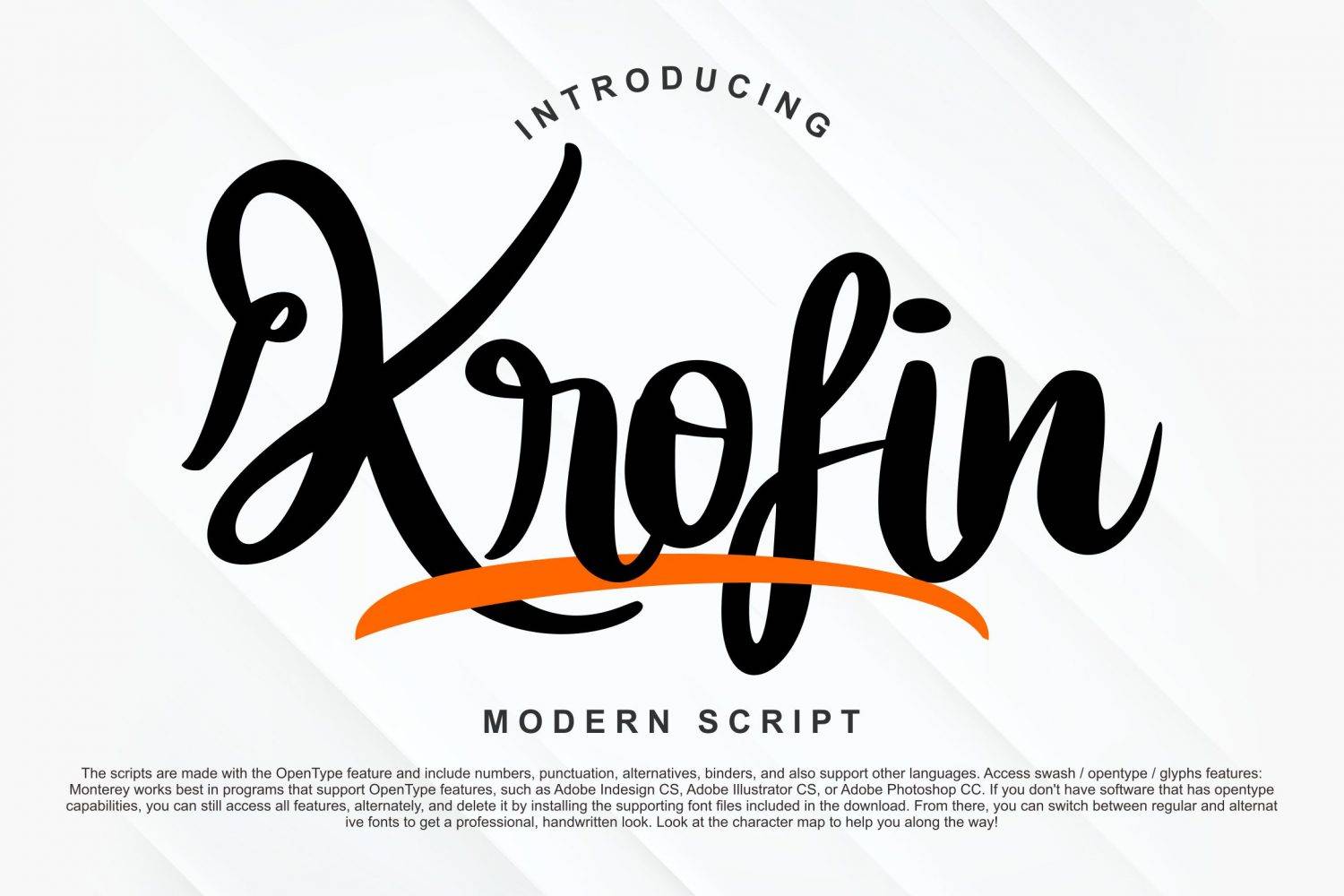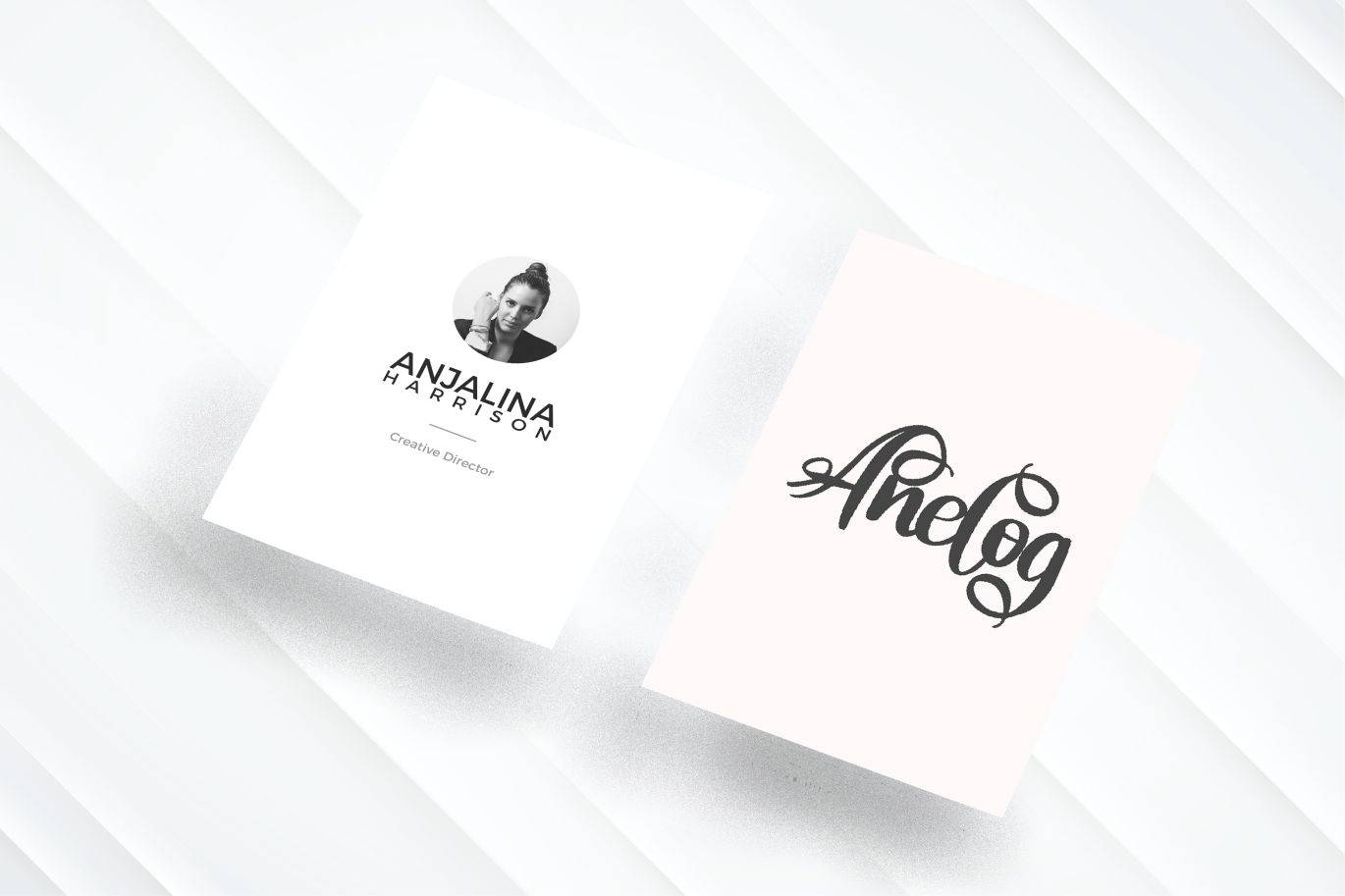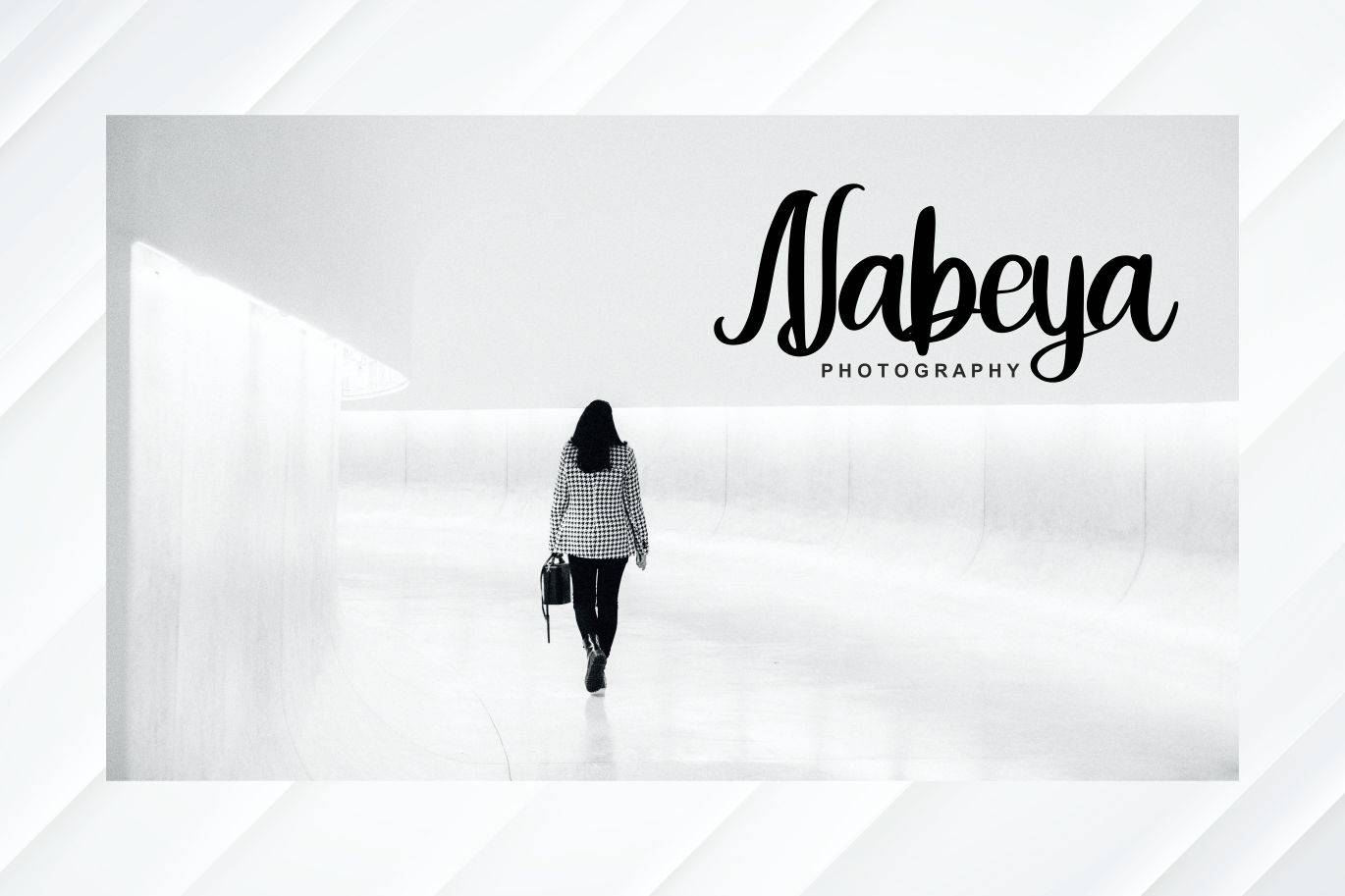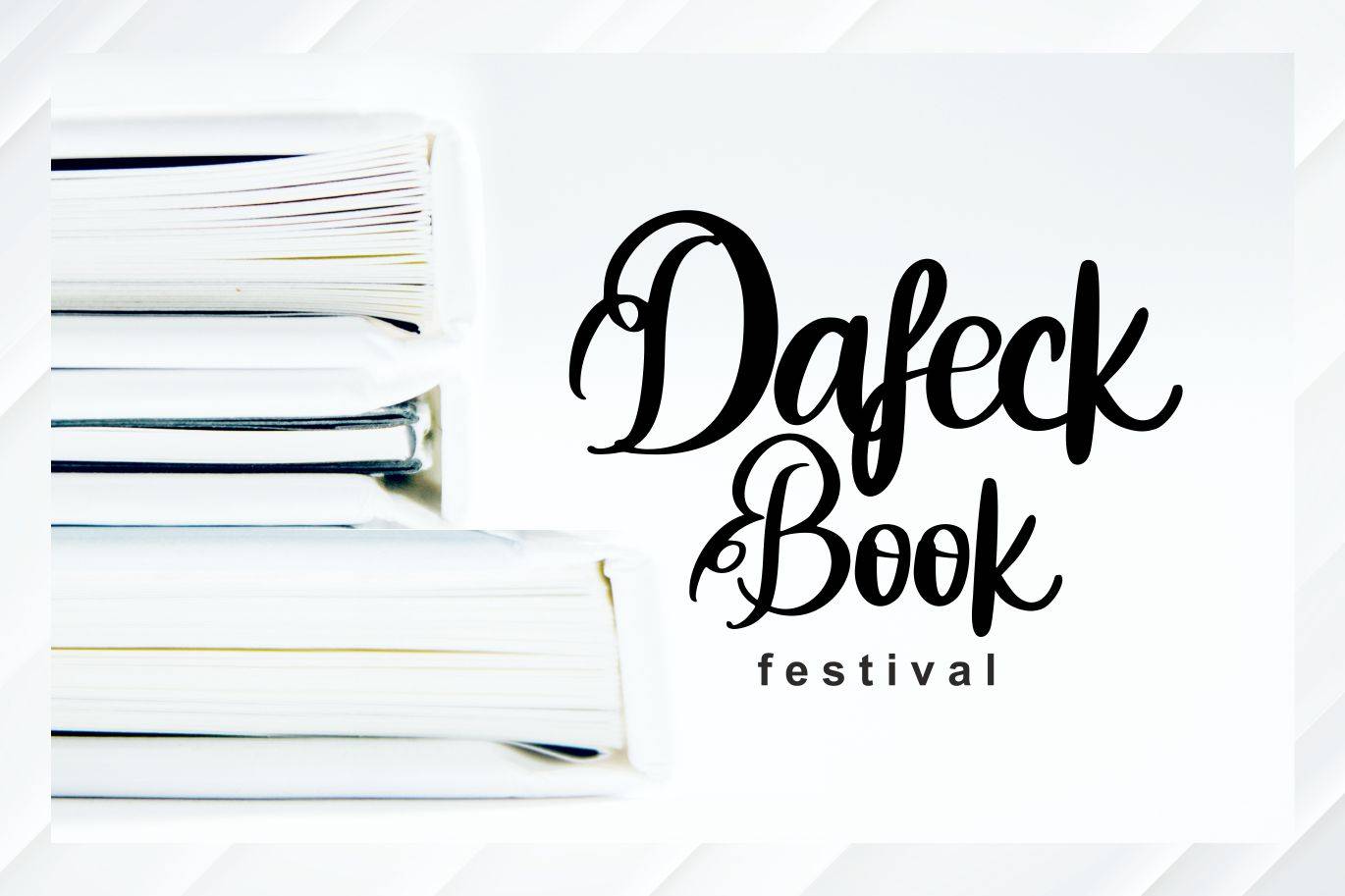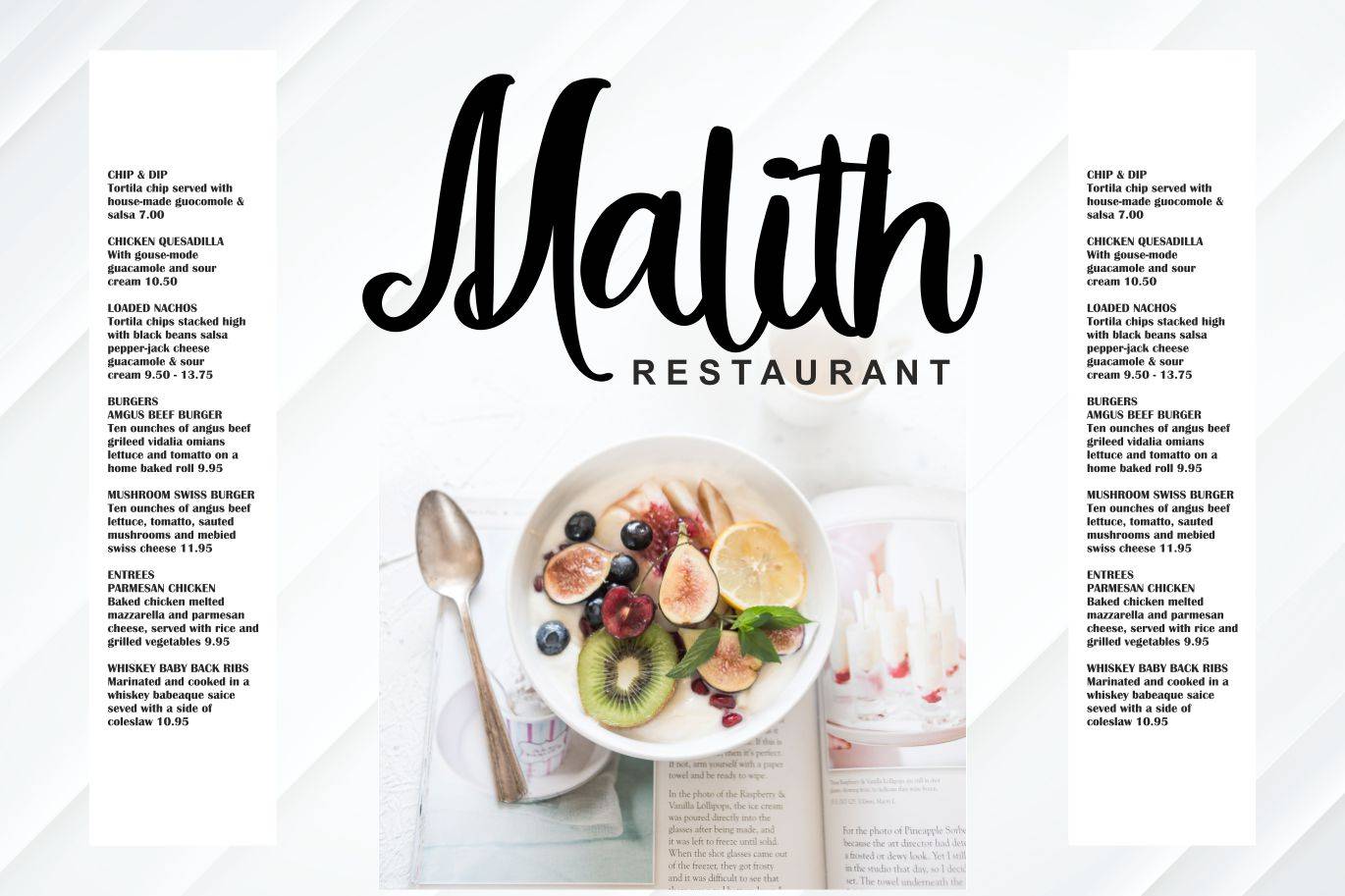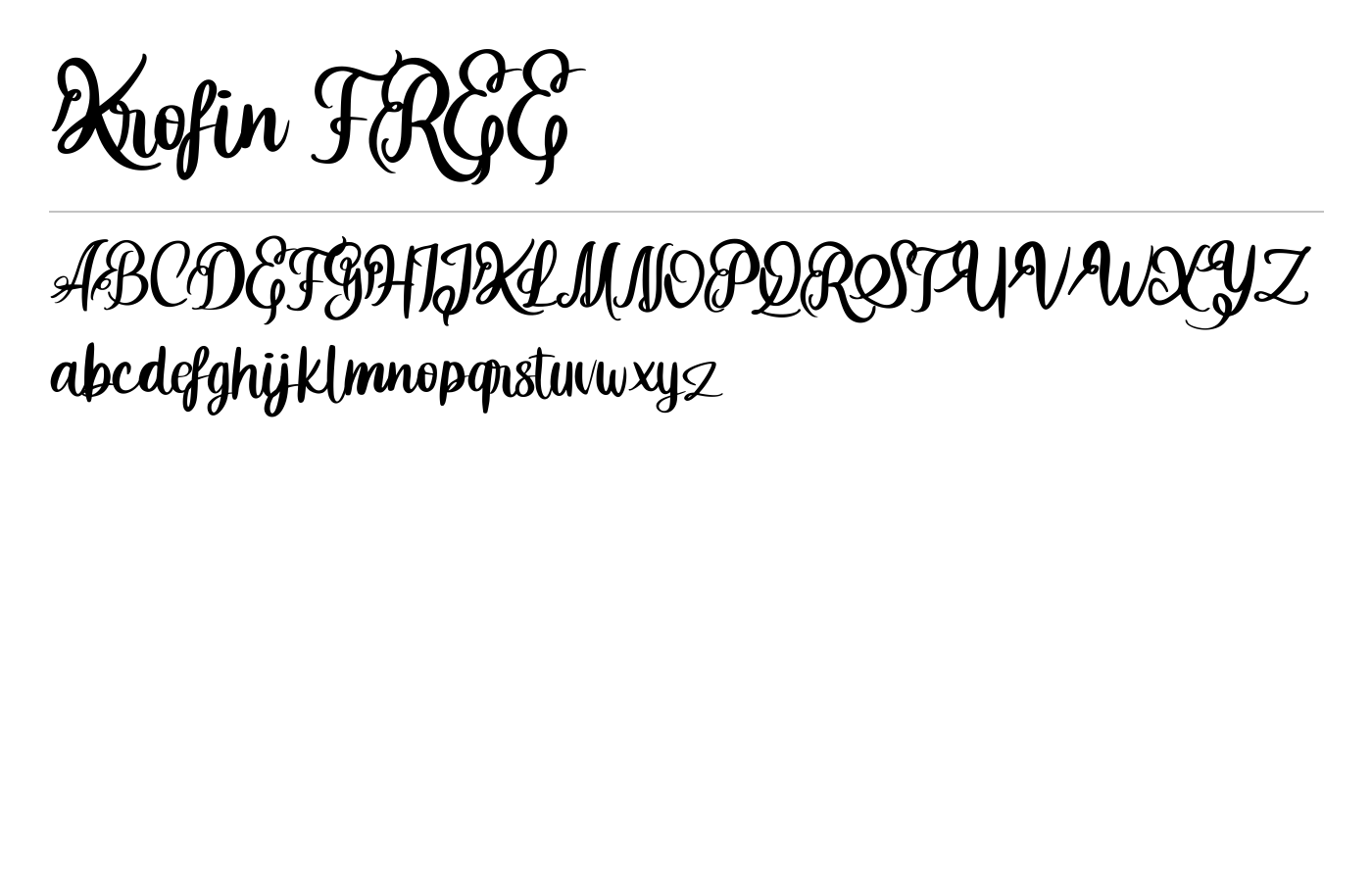
Krofin is an elegant script font with a lively, flowing style that features smooth, bold strokes and intricate, decorative swashes on its uppercase letters. Its high contrast and refined letterforms give it a sophisticated yet approachable feel, making it perfect for invitations, branding, and stylish headlines where a touch of charm and personality is desired. This font works well for fashion, beauty, and luxury projects that seek to convey elegance and creativity.
Krofin Font
About Krofin Font
| Font family | Krofin Font |
| Designer | Fannan Studio |